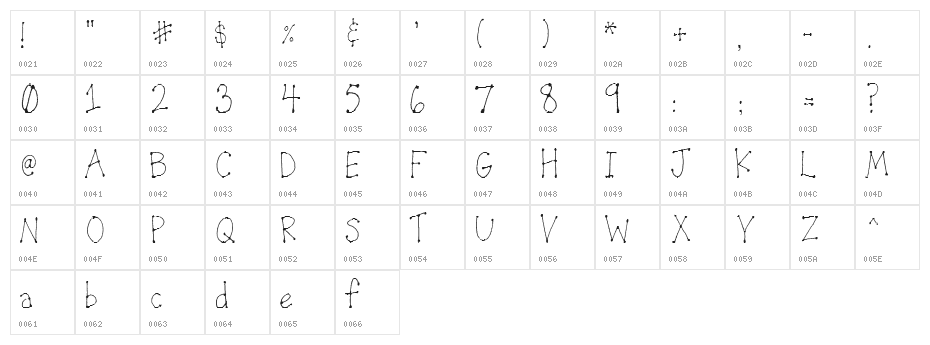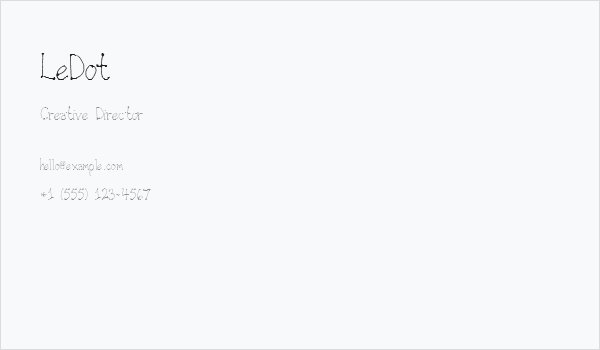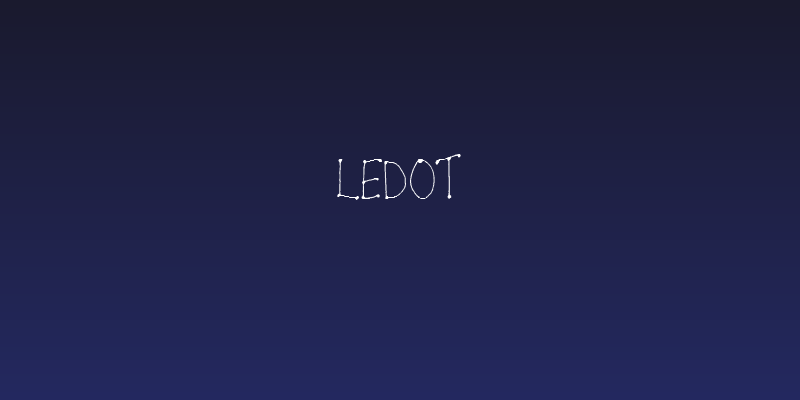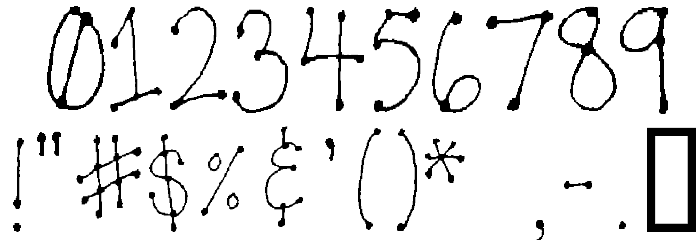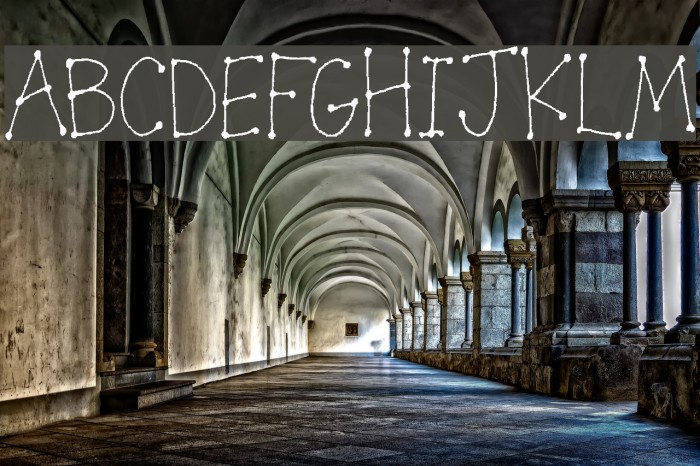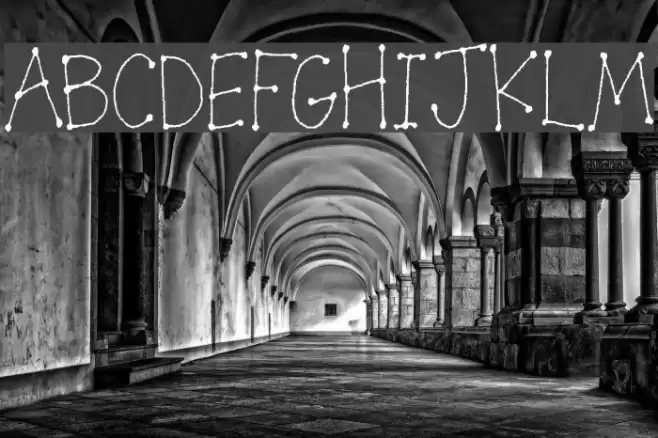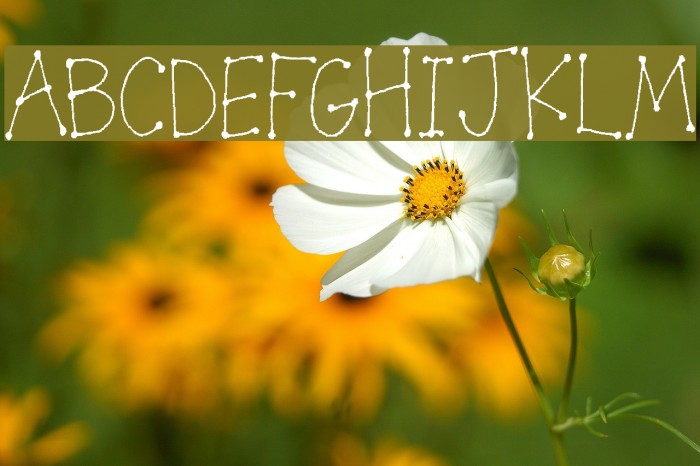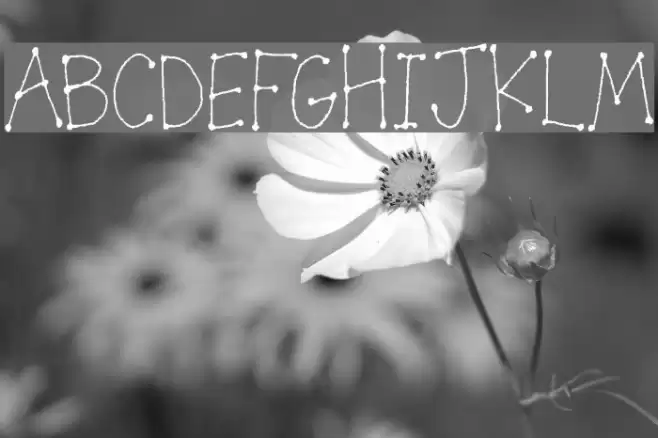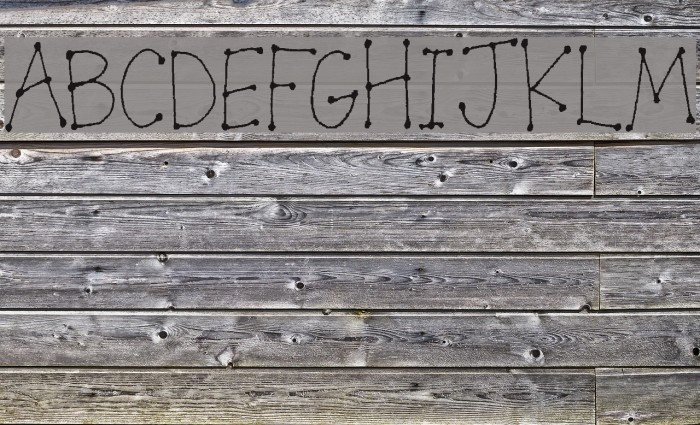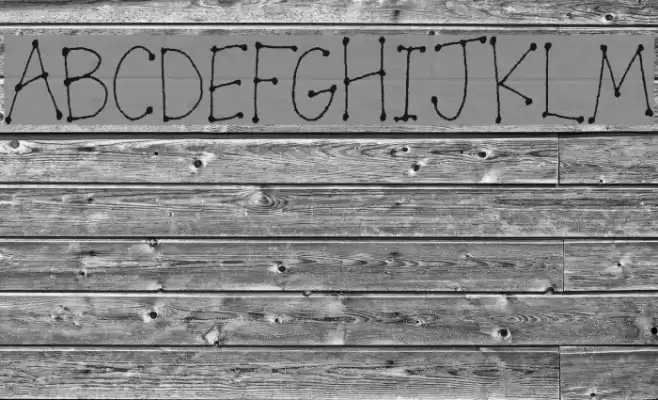
LeDot Font
LeDot Description
This font features a playful and whimsical design, characterized by its dotted line style. Each character is constructed with a series of dots connected by thin lines, giving it a hand-drawn and informal appearance. The uppercase and lowercase letters maintain a consistent style, with rounded edges and a slightly irregular form that adds to its charm. The numbers and special characters follow the same design principles, ensuring a cohesive look across all elements. This font is ideal for projects that require a fun and lighthearted touch, such as children's books, greeting cards, or playful branding.
| Overall Style | Whimsical, Playful |
| Use Case | Headlines, Logos, Decorative text |
| Proposed Projects | Children's books, greeting cards, playful branding, informal invitations. |